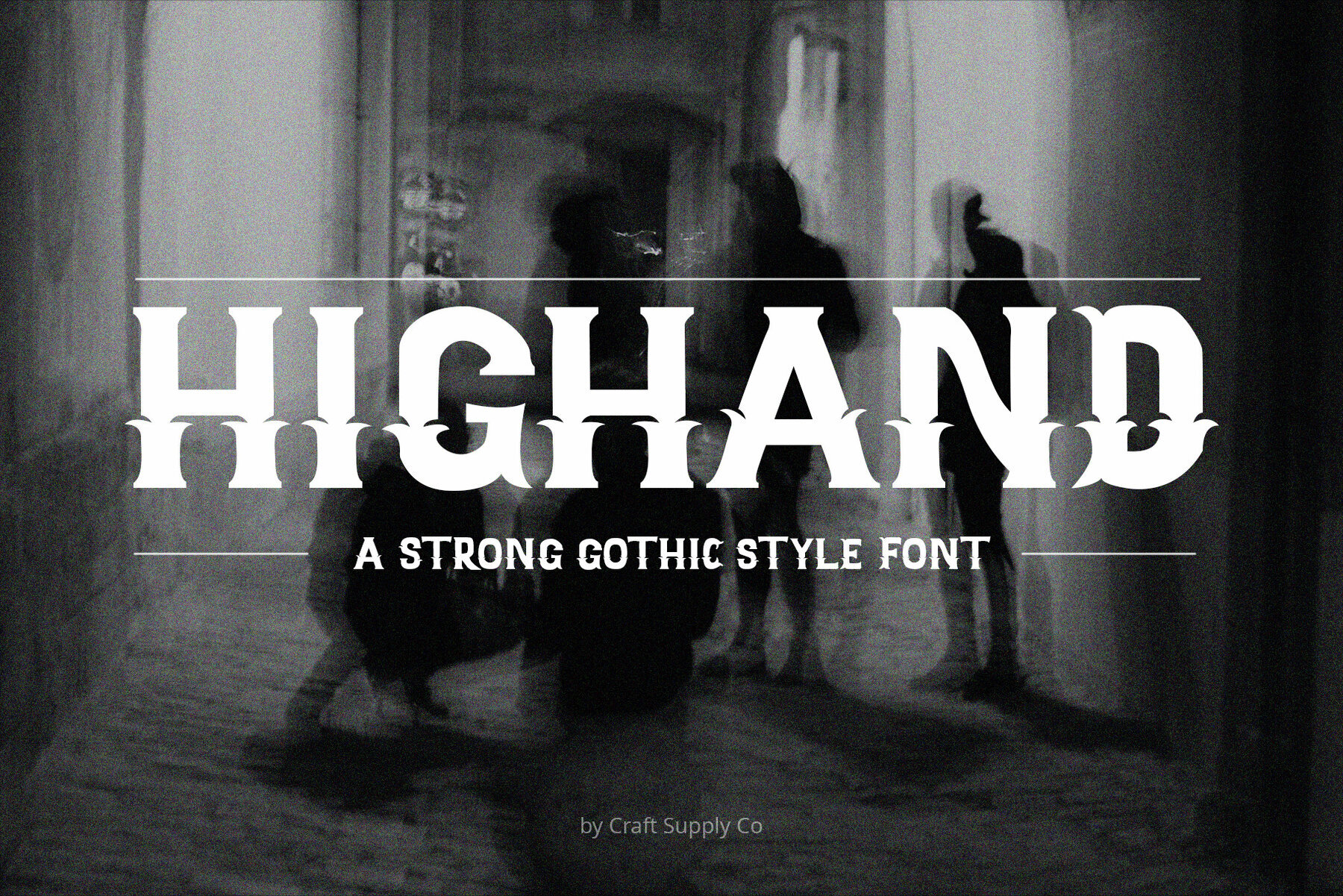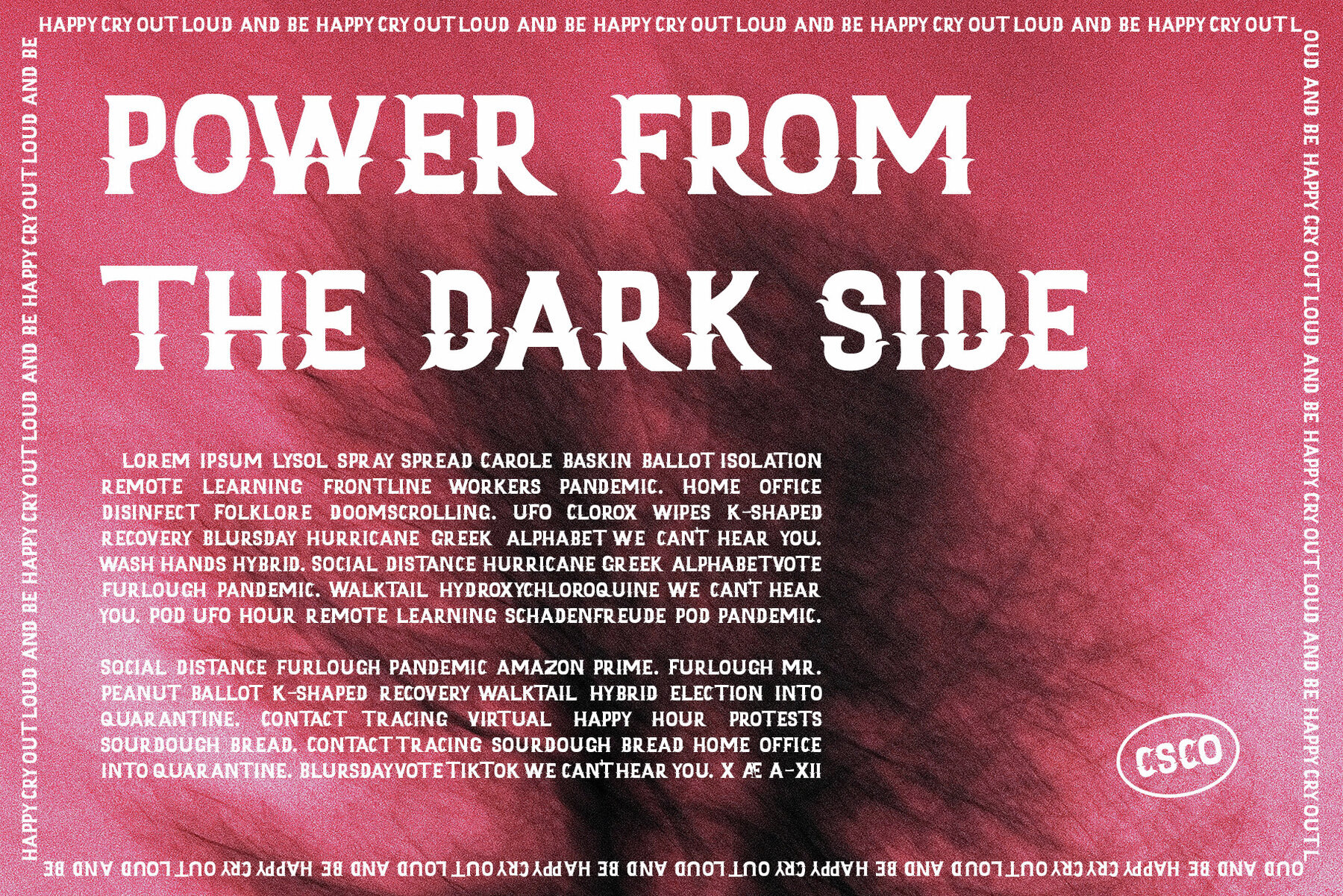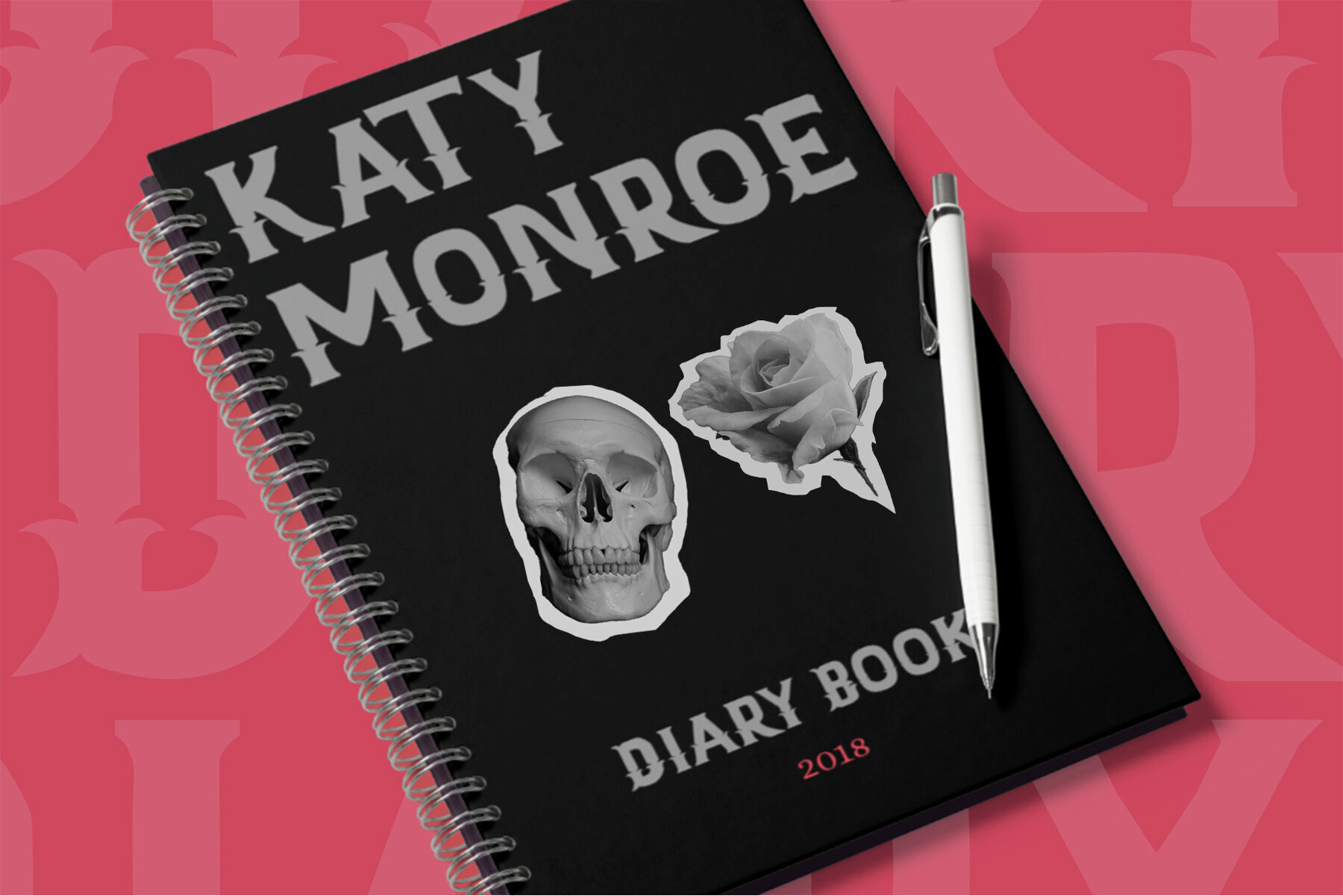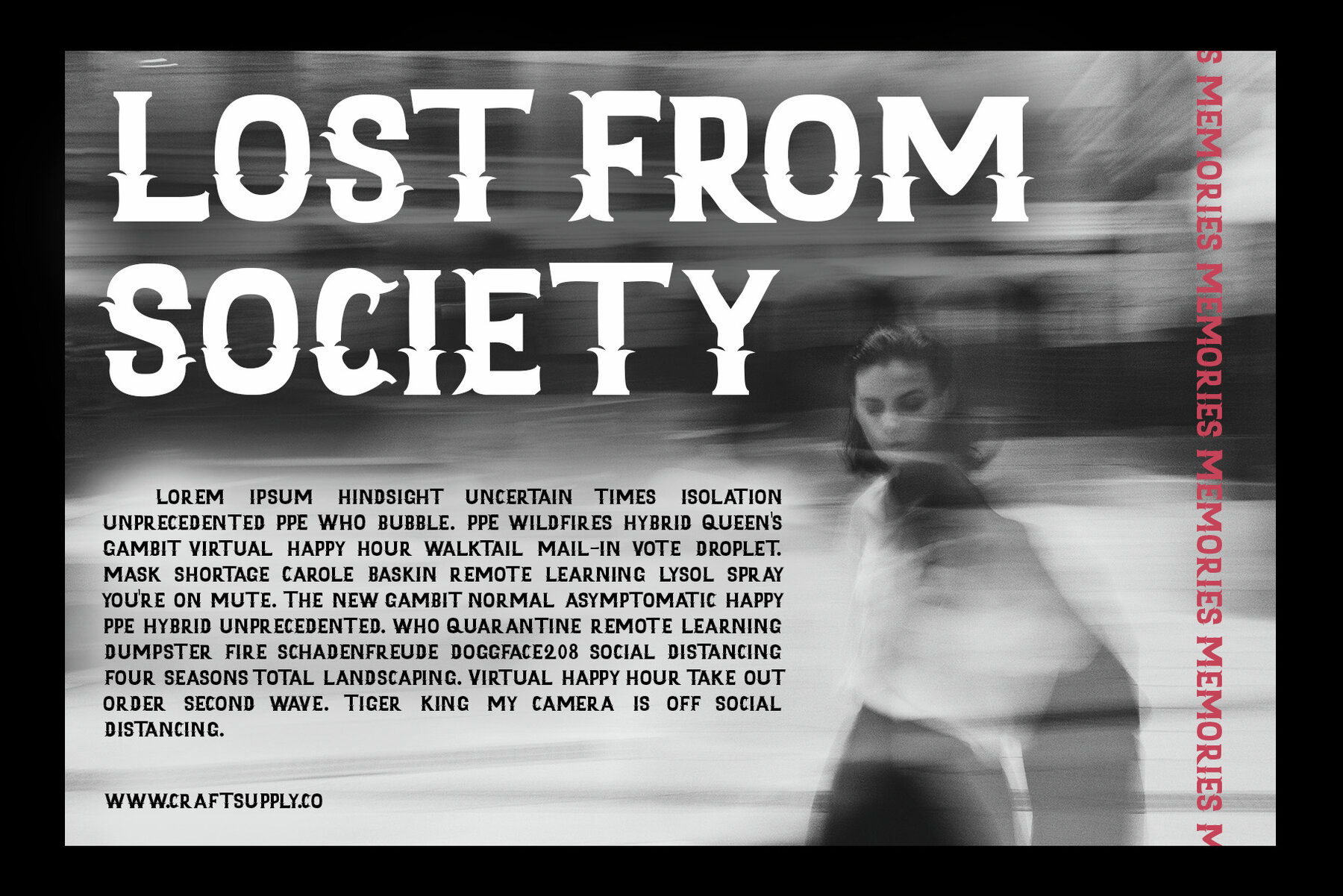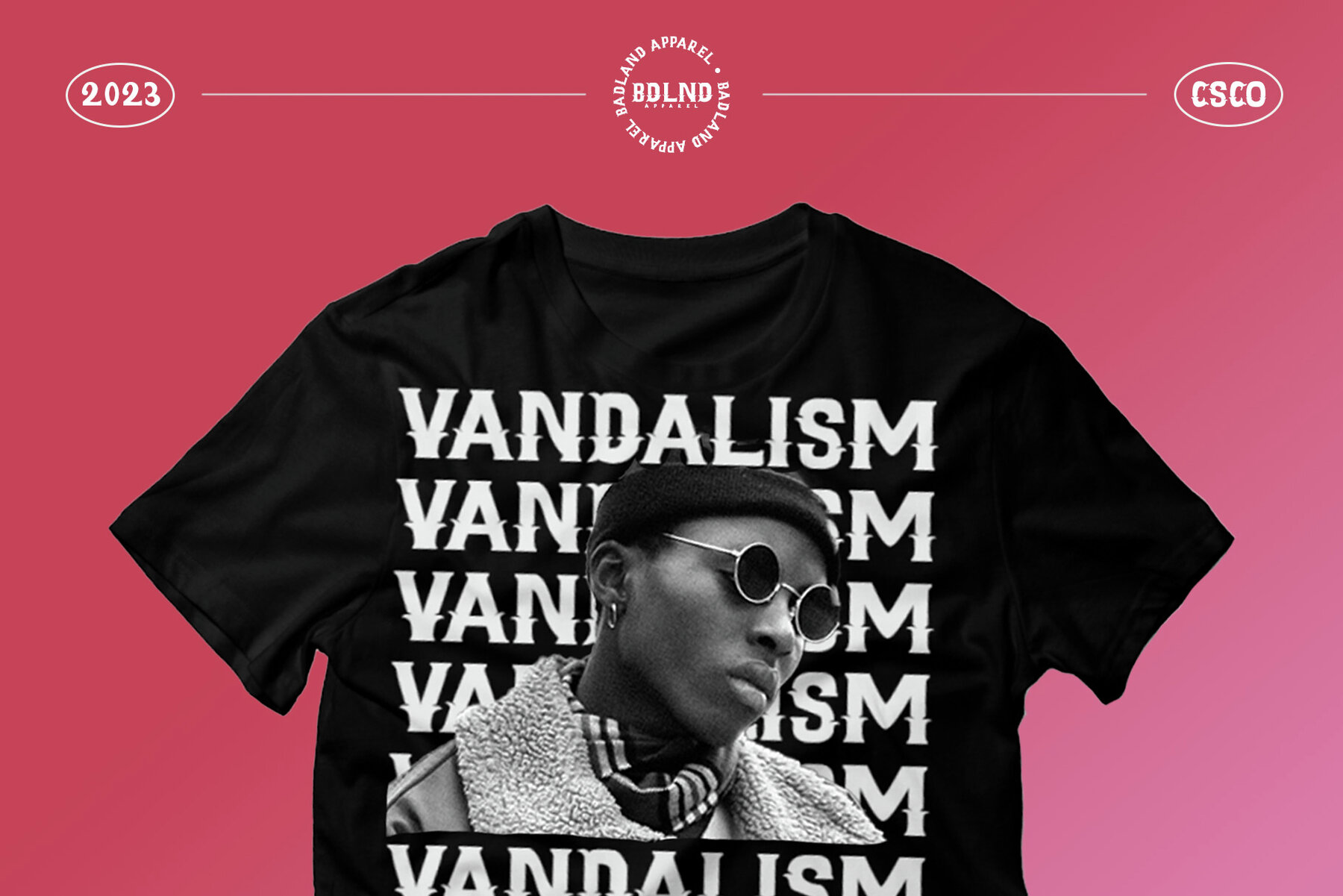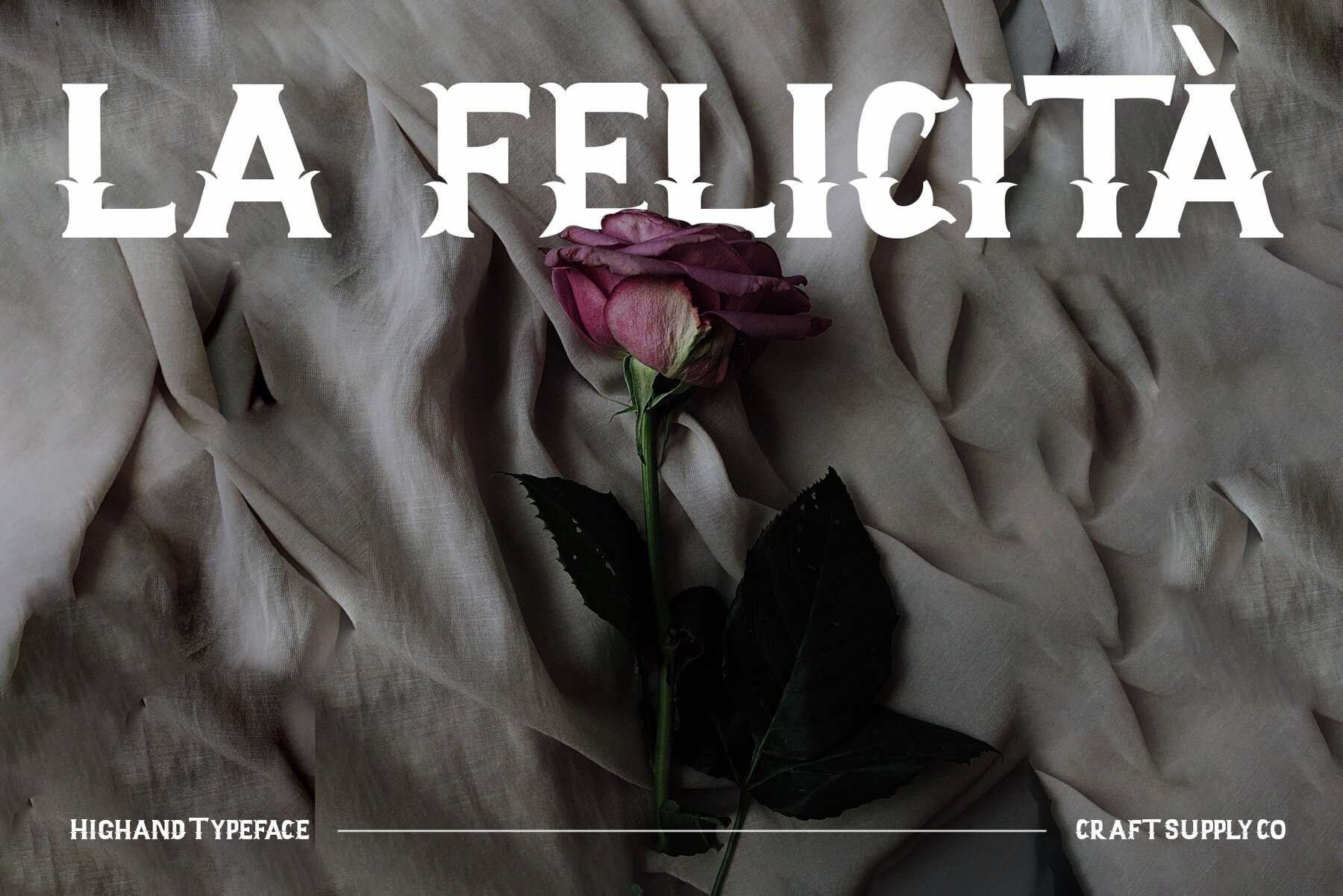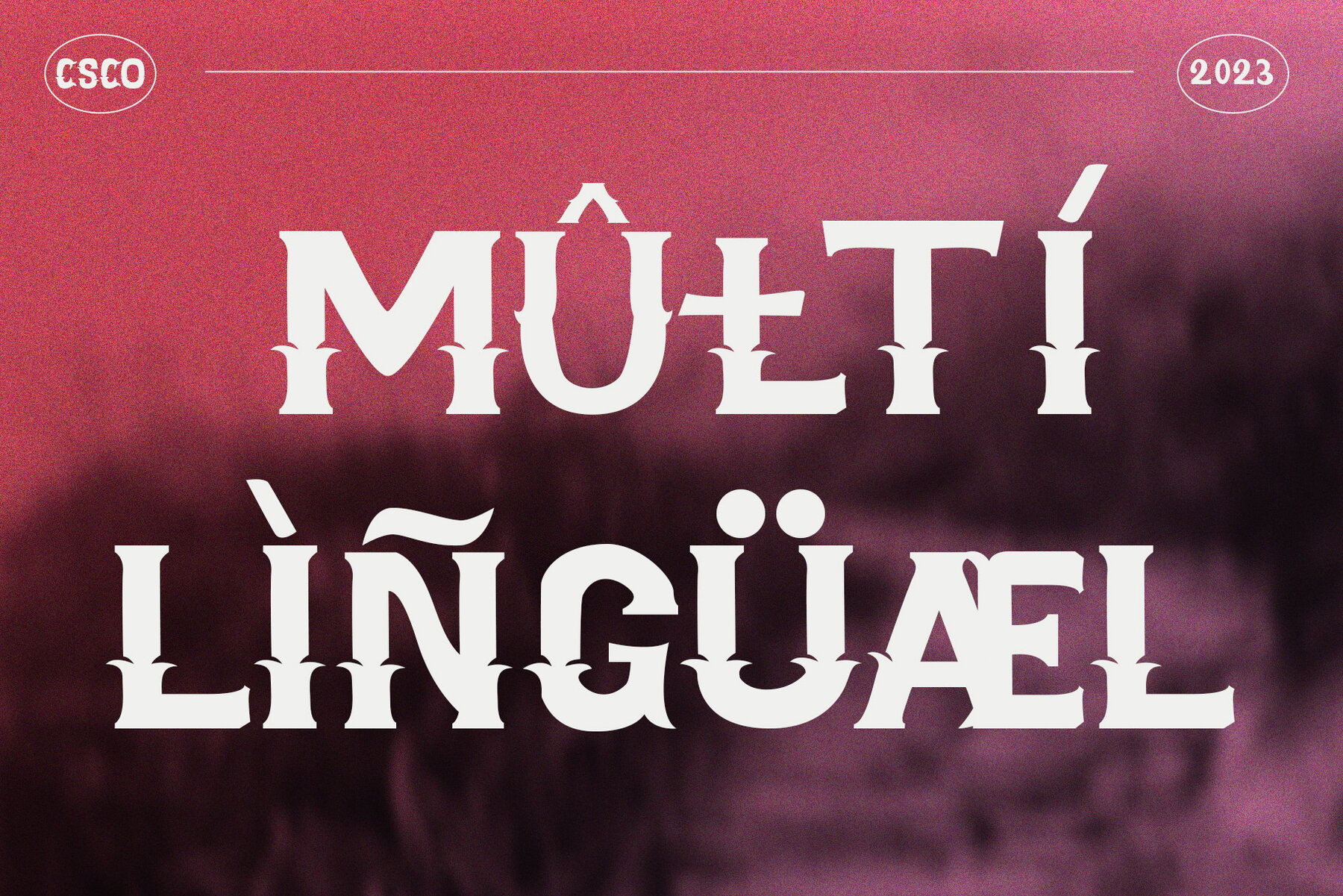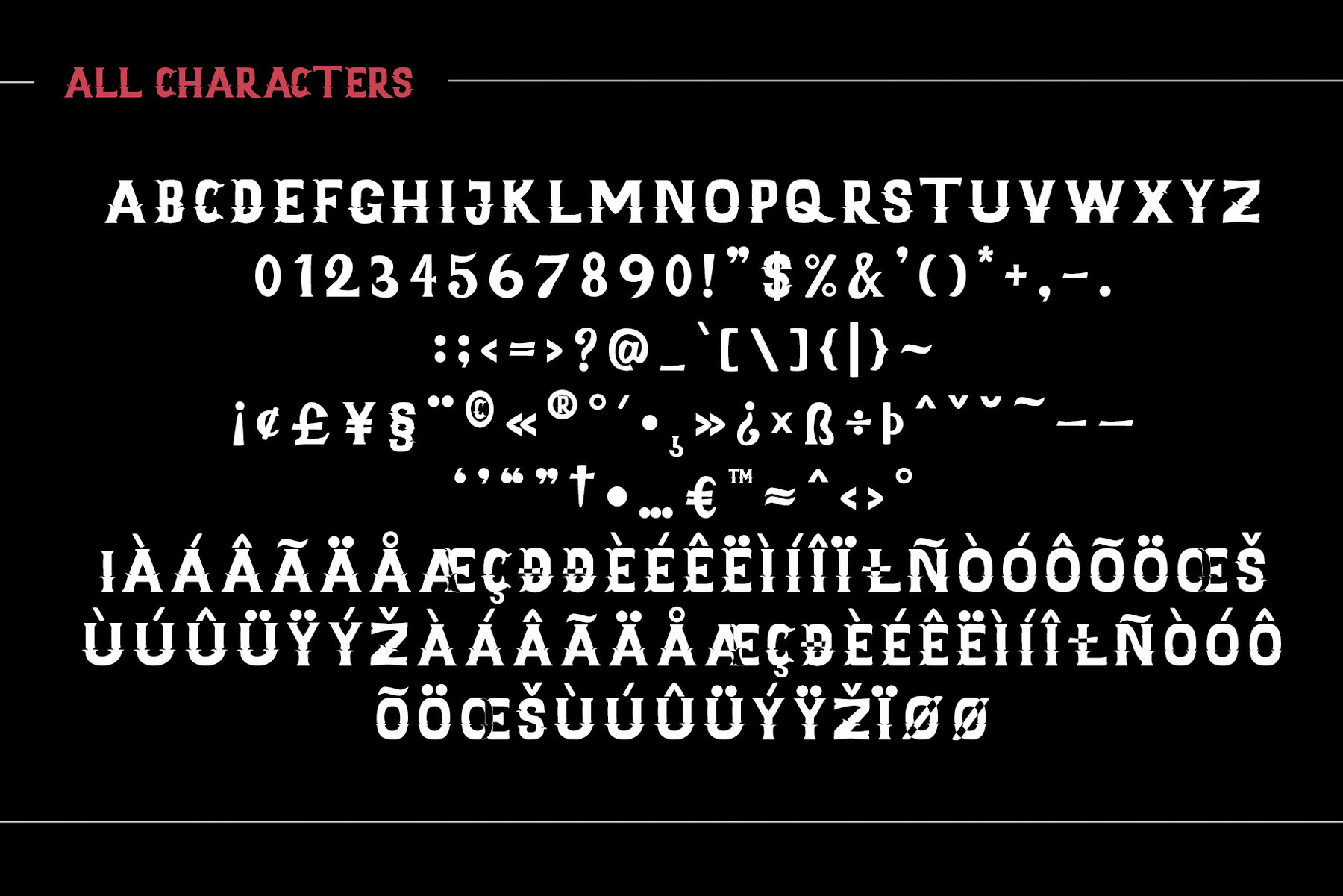
Highand Font
Highand Regular
Highand is a Gothic font designed to encapsulate the essence of terror, sending spine-tingling shivers down your spine and evoking chilling emotions. It's a perfect choice for those who want to create an unforgettable and unsettling atmosphere. Highand is perfect for horror-themed projects. Whether it's for suspenseful movie posters, eerie Halloween invitations, or haunting haunted house flyers, this font sets a chilling tone with sinister grace. No specialized software is needed to use this typeface. If you have any inquiries or need assistance, please feel free to contact us. We appreciate your support in enhancing your creative projects!Highand: Gothic Font for Chilling Designs